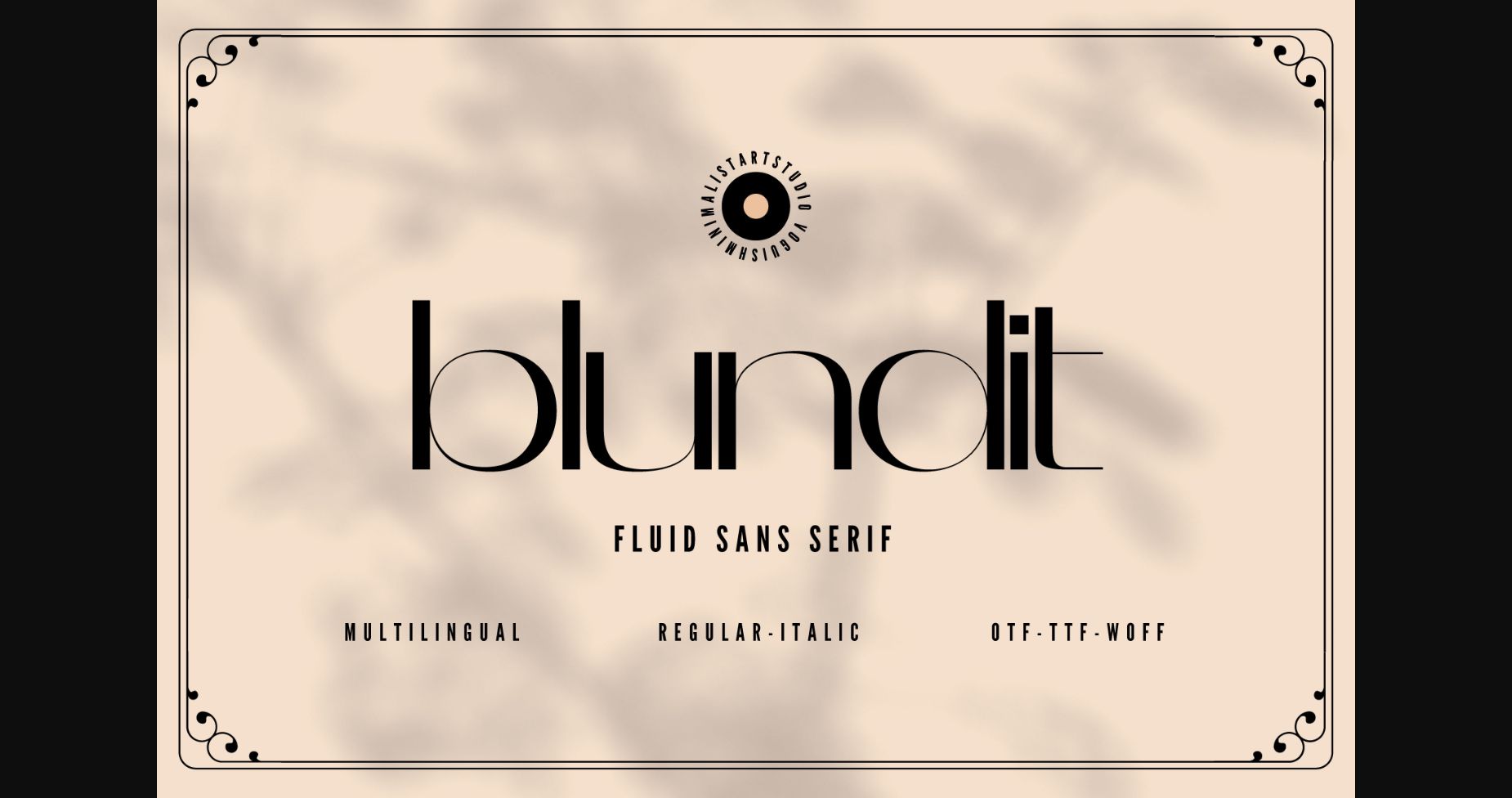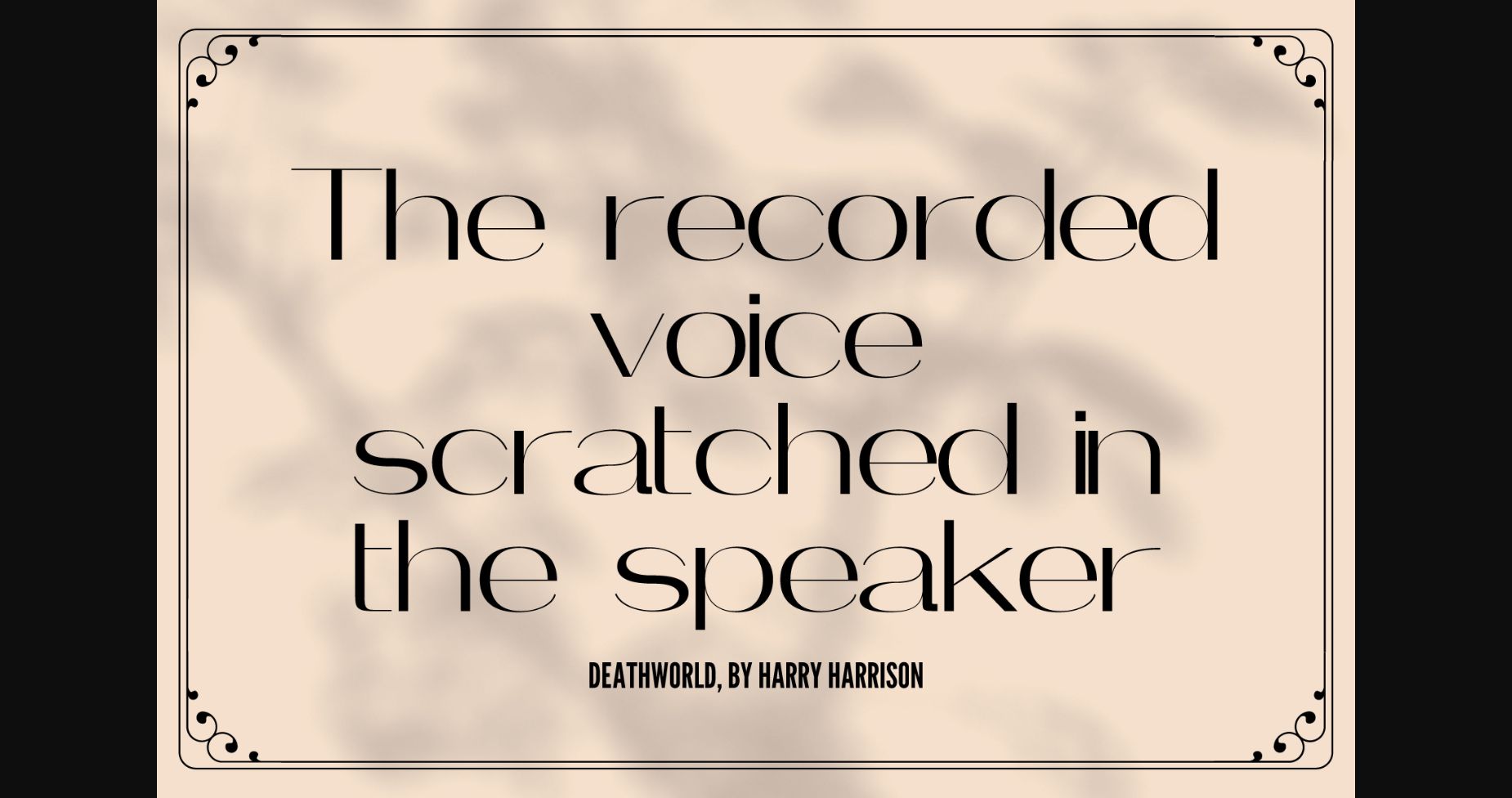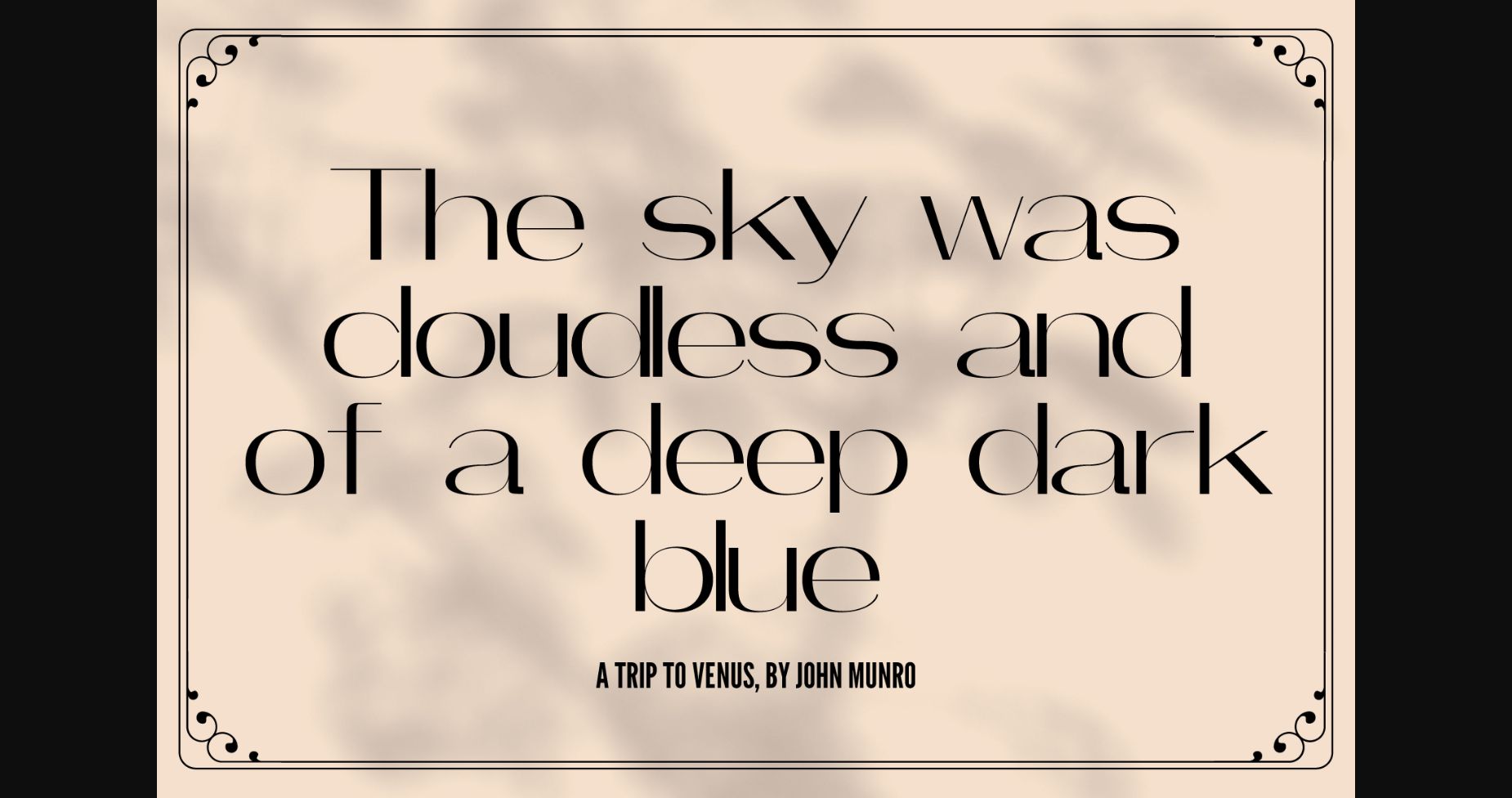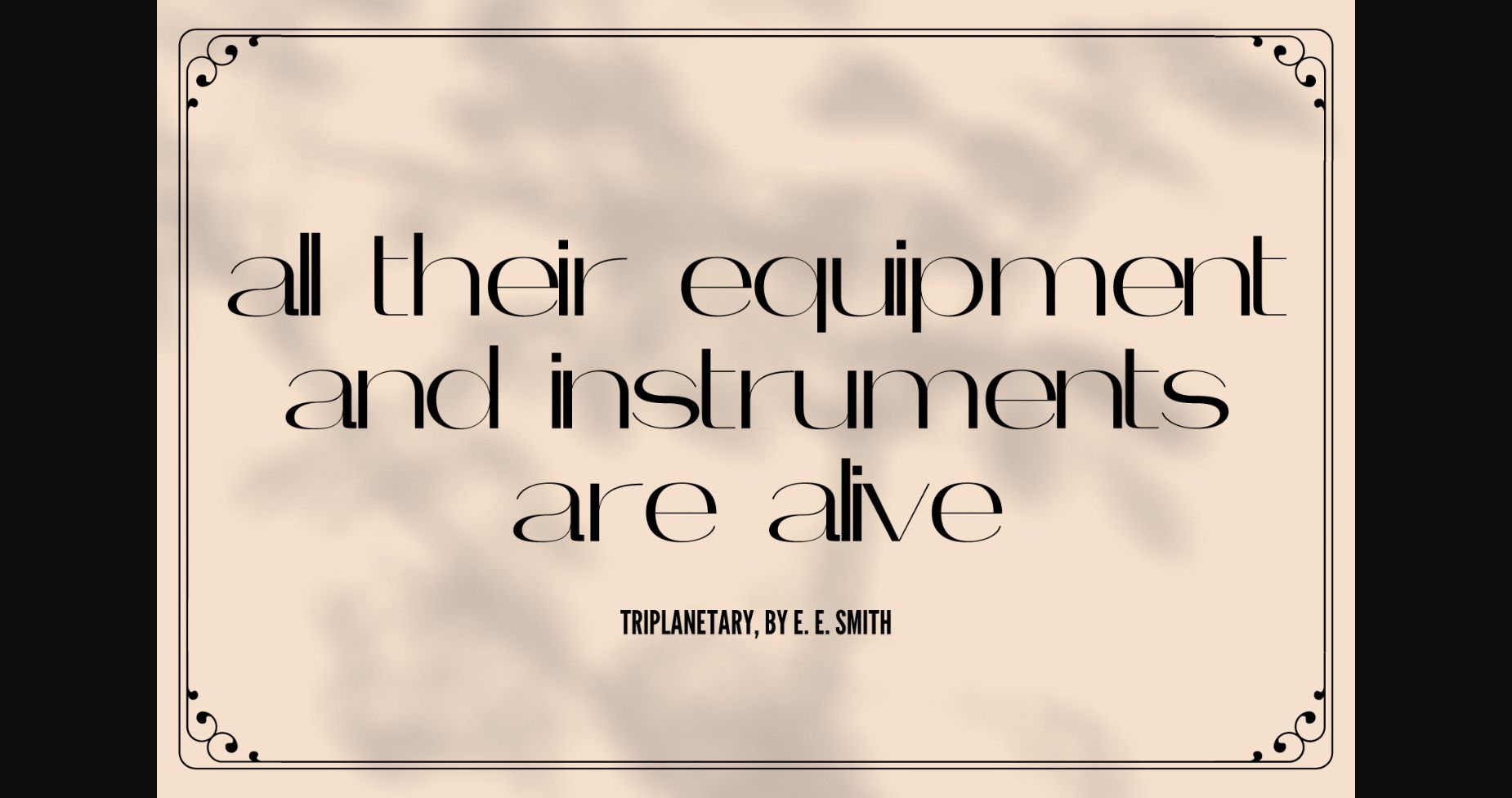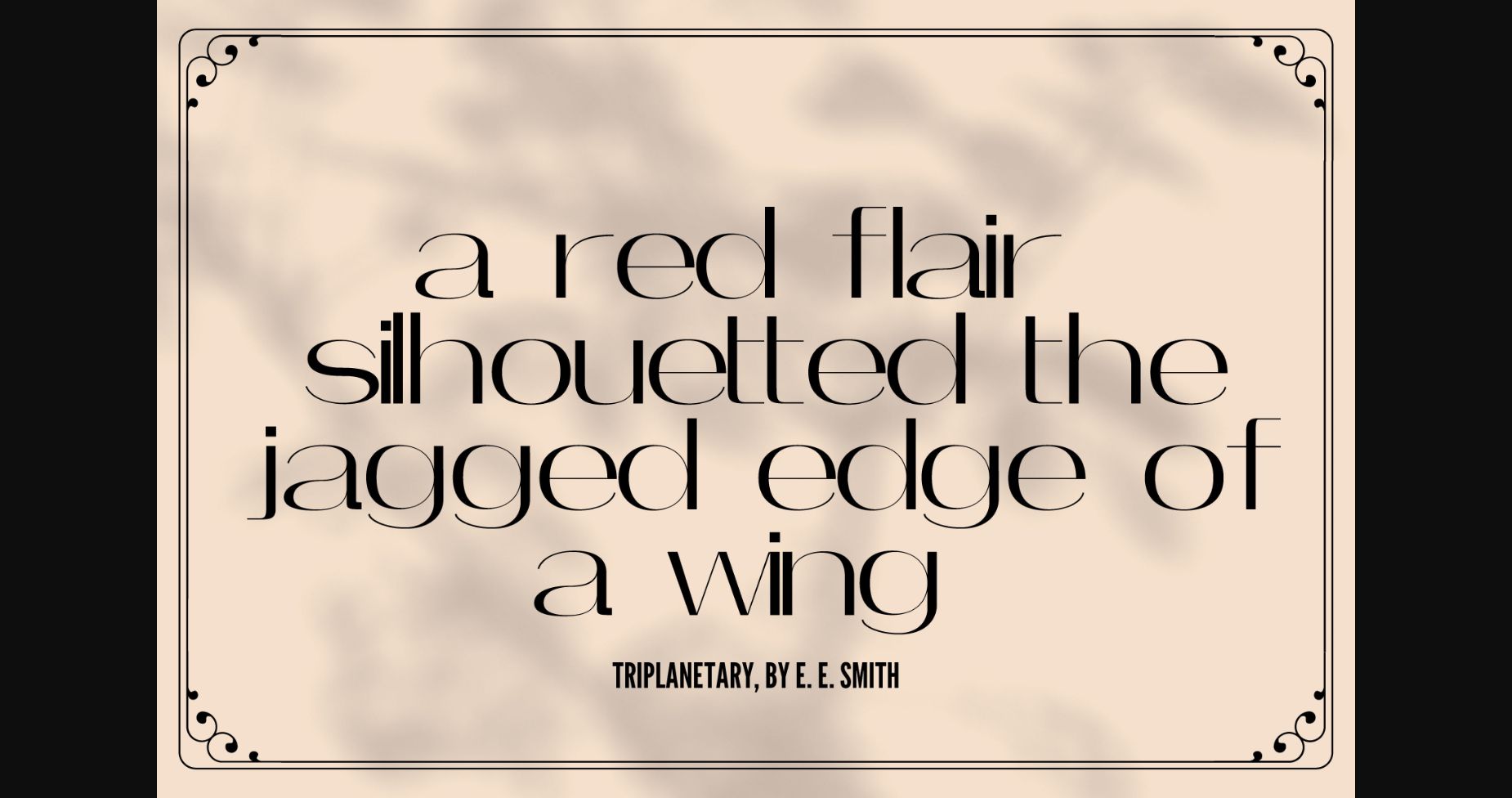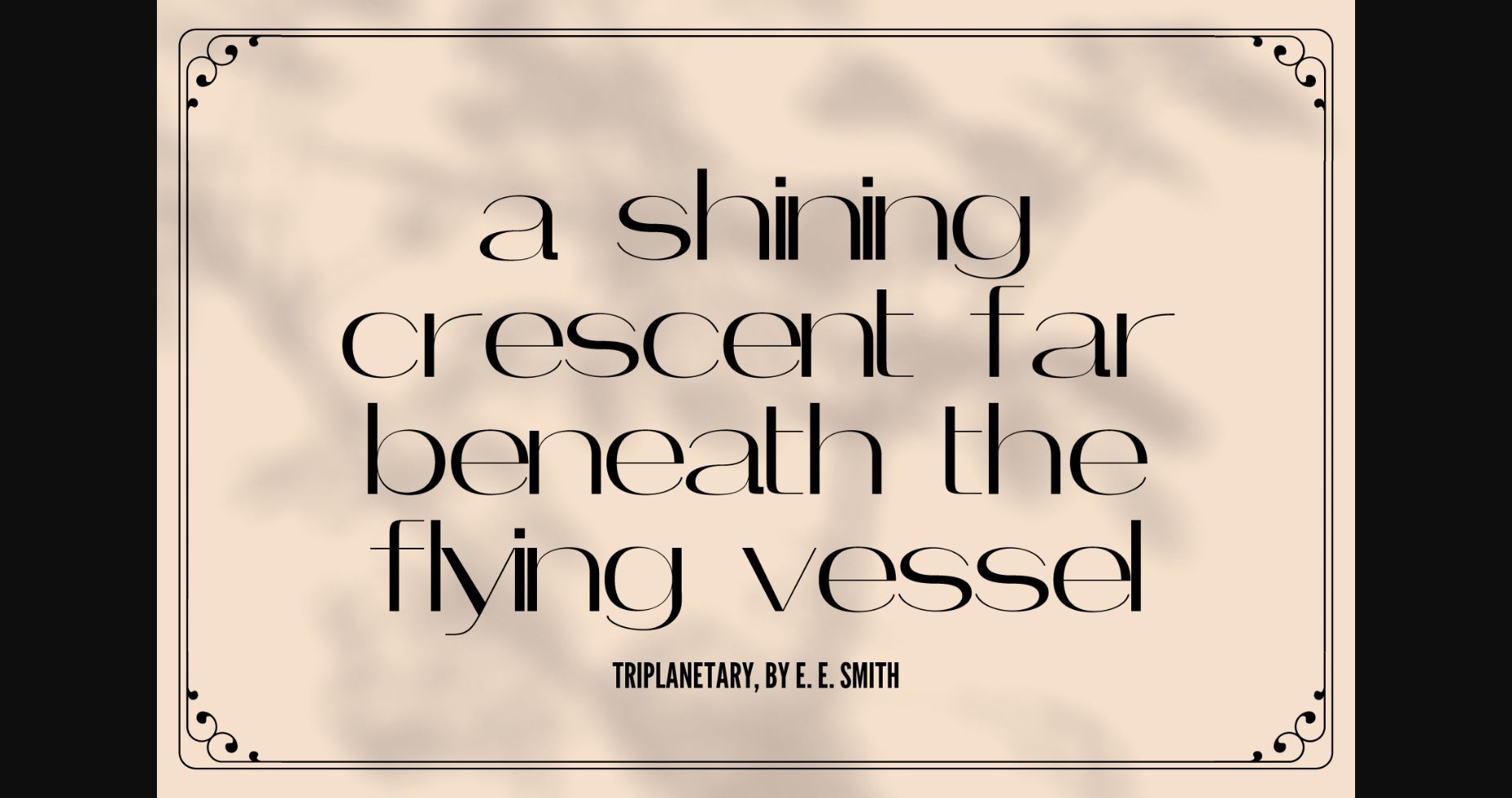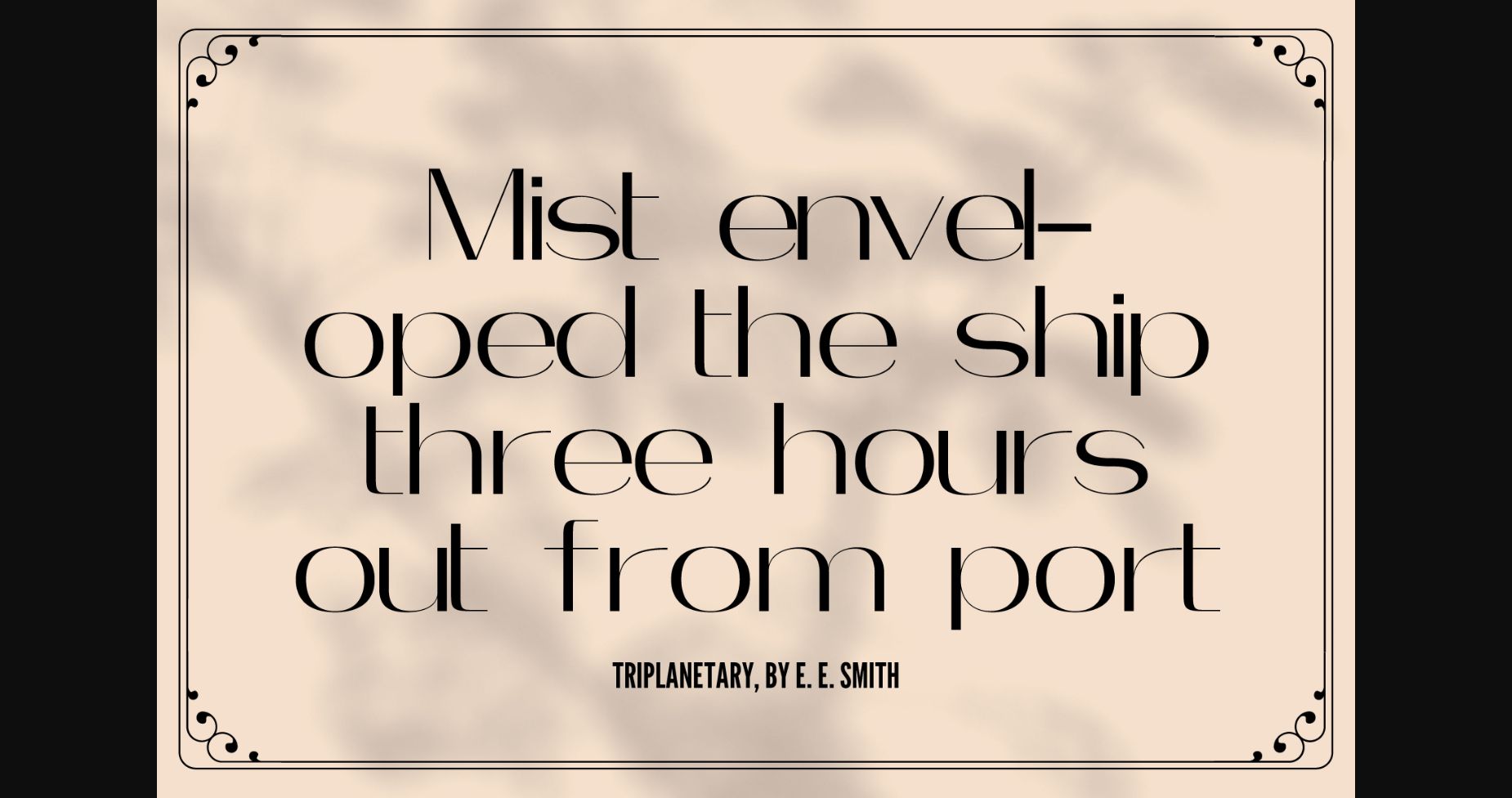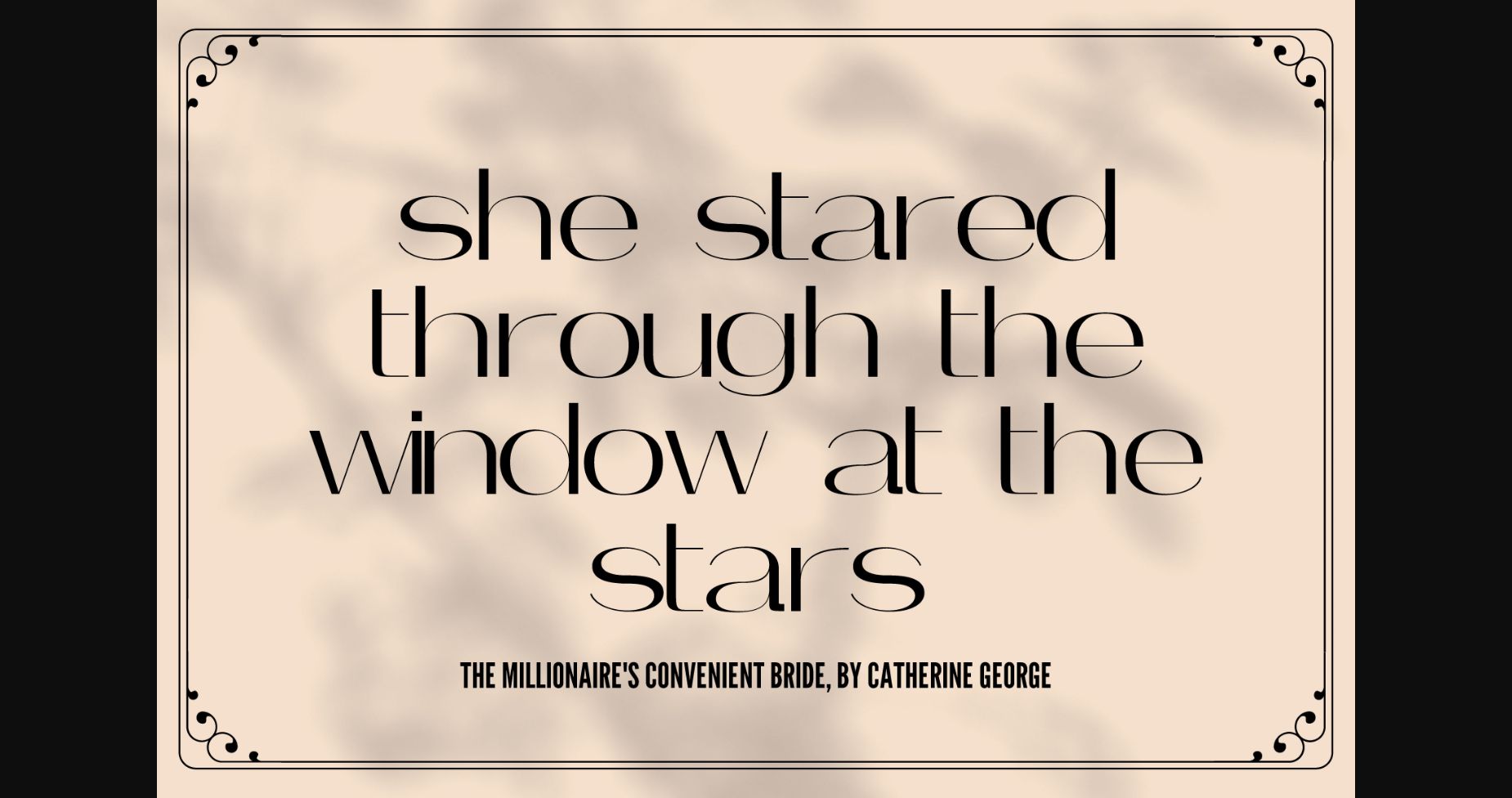
Blundit Font
About Blundit Font
Introducing Blundit, the sleek and minimalist sans serif font that is perfect for modern design projects.
Blundit is characterized by its fluid lines and clean curves, which create a sense of simplicity and elegance. The font’s minimalist design makes it a great choice for branding, web design, print materials, and more. Whether you’re creating a logo, a poster, or a website, Blundit will help you achieve a polished and professional look.